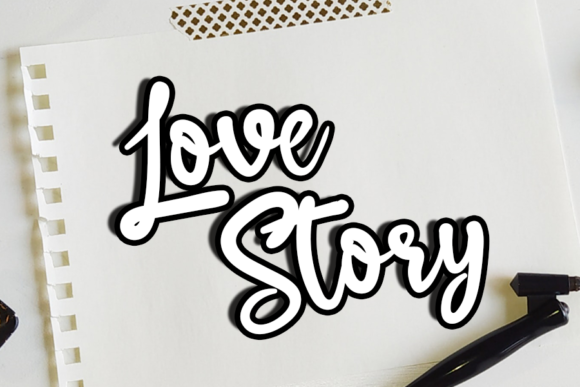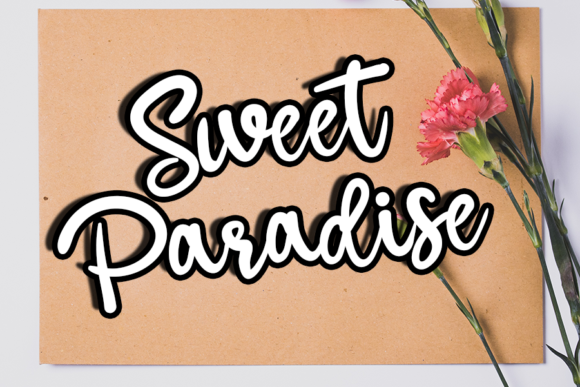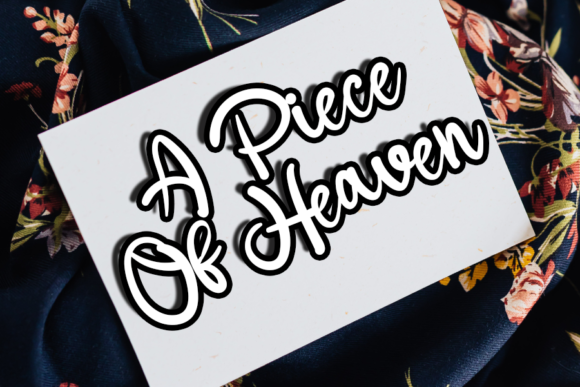
Introduction to Great Valentine Font
Great Valentine is a trendy and delicate script font.
This versatile script font has a wide spectrum of applications ranging from greeting cards to headlines and is guaranteed to add a romantic feel to your next project .